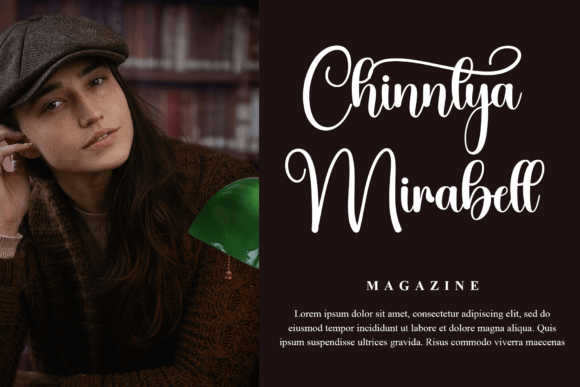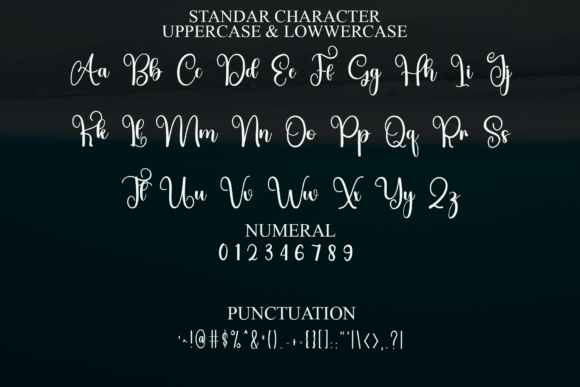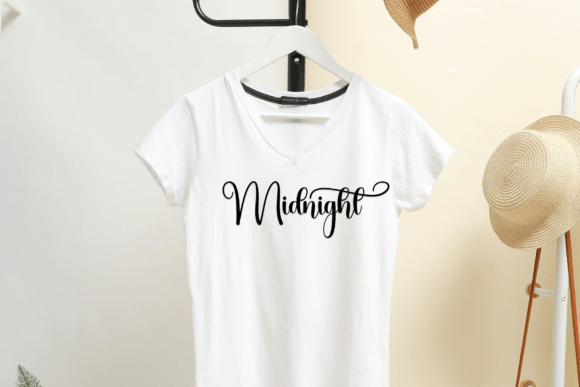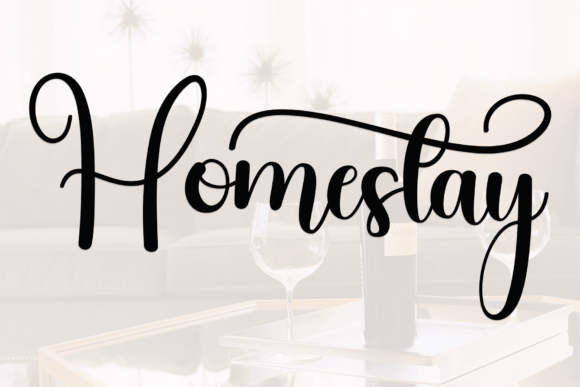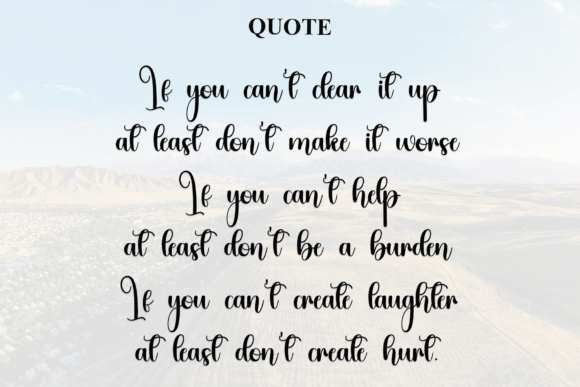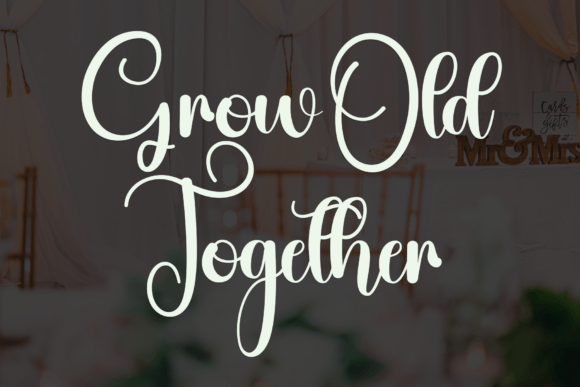
Eternal Signature Font: A Festive and Merry Typeface for the Holiday Season
The holiday season is upon us, and with it comes the joy of creating festive and merry designs that capture the spirit of Christmas. As a designer or crafter, you’re likely on the lookout for the perfect font to add a touch of enchantment to your projects. Look no further than the Eternal Signature Font, a decorative typeface that’s sure to bring a cheerful and nostalgic ambiance to your words.
What is Eternal Signature Font?
Eternal Signature Font is a specially designed typeface that’s perfect for the holiday season. With its whimsical flair and decorative elements, it’s sure to add a touch of magic to your designs. This font is ideal for creating festive and merry projects, such as greeting cards, gift tags, and holiday-themed crafts.
Key Features of Eternal Signature Font
- Festive and Merry Design: Eternal Signature Font is designed to capture the spirit of the holiday season. Its decorative elements and whimsical flair make it perfect for creating festive and merry designs.
- PUA Encoded: This font is PUA encoded, which means you can access all of the amazing glyphs and ligatures with ease. This makes it easy to create beautiful and intricate designs.
- Perfect for Holiday Projects: Eternal Signature Font is ideal for creating holiday-themed projects, such as greeting cards, gift tags, and crafts.
Why Choose Eternal Signature Font?
There are many fonts available that claim to be festive and merry, but Eternal Signature Font stands out from the rest. Here are just a few reasons why:
- Unique Design: Eternal Signature Font has a unique design that’s unlike any other font on the market. Its decorative elements and whimsical flair make it perfect for creating festive and merry designs.
- High-Quality: This font is high-quality and can be used for a variety of projects, from personal crafts to commercial designs.
- Easy to Read: Despite its decorative design, Eternal Signature Font is easy to read and can be used for both headings and body text.
Uses for Eternal Signature Font
Eternal Signature Font is a versatile typeface that can be used for a variety of projects. Here are just a few ideas to get you started:
- Greeting Cards: Create festive and merry greeting cards for the holiday season using Eternal Signature Font.
- Gift Tags: Add a touch of enchantment to your gift tags with this beautiful font.
- Holiday Crafts: Use Eternal Signature Font to create festive and merry holiday crafts, such as decorations, garlands, and more.
- Commercial Designs: This font is perfect for commercial designs, such as holiday-themed advertisements, packaging, and more.
Tips for Using Eternal Signature Font
Here are just a few tips for using Eternal Signature Font:
- Use it Sparingly: While Eternal Signature Font is perfect for creating festive and merry designs, it’s best to use it sparingly. Use it for headings or titles, and a simpler font for body text.
- Experiment with Colors: This font looks great in a variety of colors, so don’t be afraid to experiment. Try using it in traditional holiday colors, such as red and green, or in more modern colors, such as metallic silver and gold.
- Pair it with Other Fonts: Eternal Signature Font can be paired with other fonts to create a unique and interesting design. Try pairing it with a simple sans-serif font for a modern look.